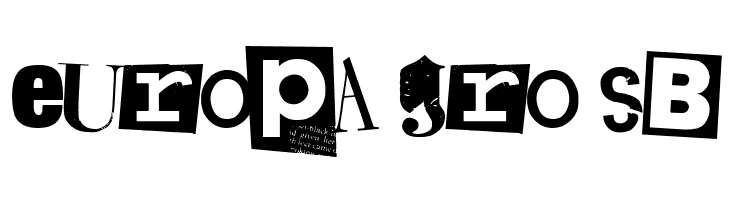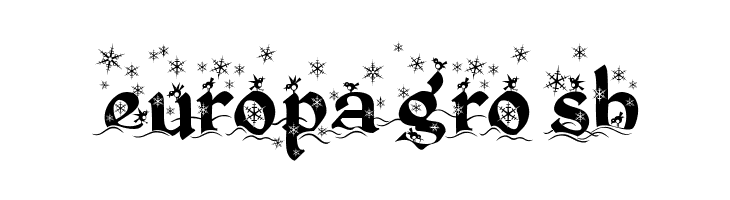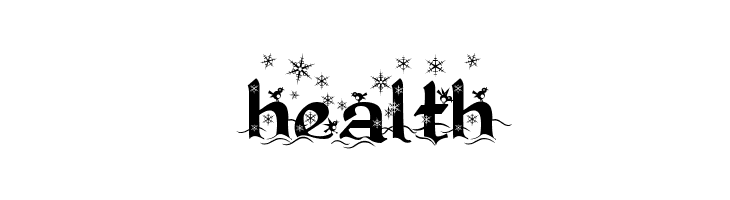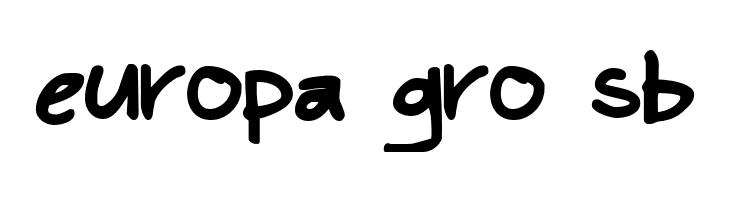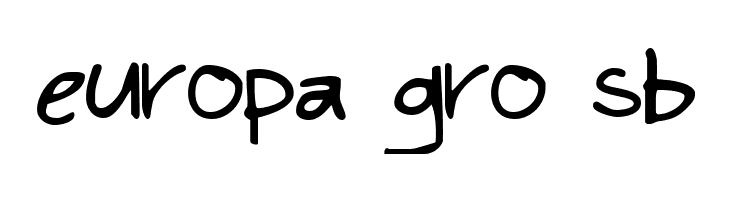
( Font by McKack )
A playful, handwritten font with smooth, rounded edges and a casual feel.
( Font by McKack )
A bold, playful handwritten font with rounded, consistent strokes.
( Fonts by Davy Meykens - davymeykens.deviantart.com )
An ornate and decorative font with intricate uppercase and casual lowercase styles.
( Matias Romero - matiasromero.deviantart.com )
A bold, playful font with pineapple crown accents on each letter.
( Fonts by www.lars-manenschijn.nl )
A bold, ornate blackletter font with a medieval and gothic aesthetic.
( Fonts by Andrew Hart - dirt2.com )
An eclectic, ransom note-style font with diverse, bold characters and grunge elements.
( Font by kingthingsfonts.co.uk )
A festive, decorative font with snowflake and star motifs, perfect for holiday themes.